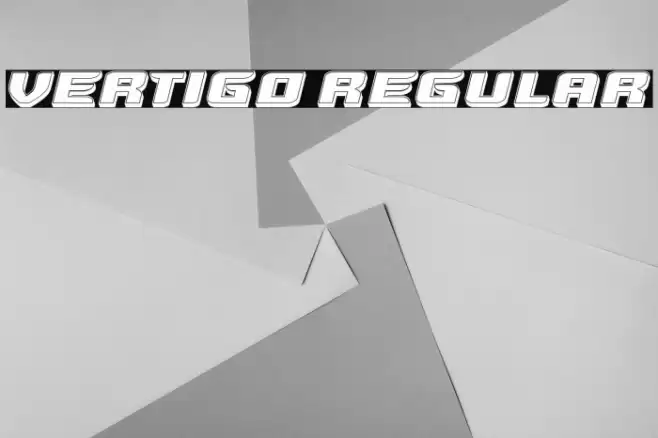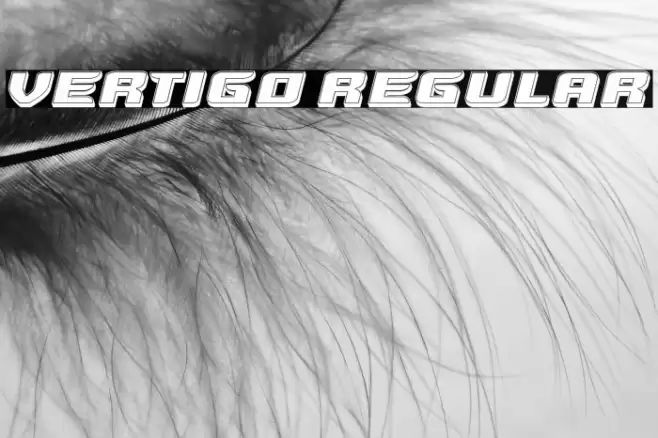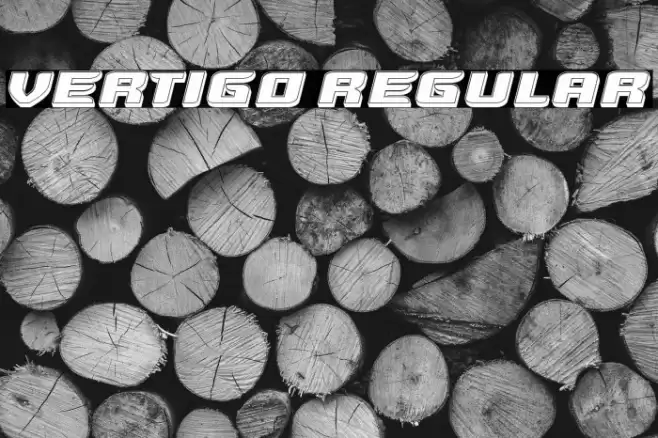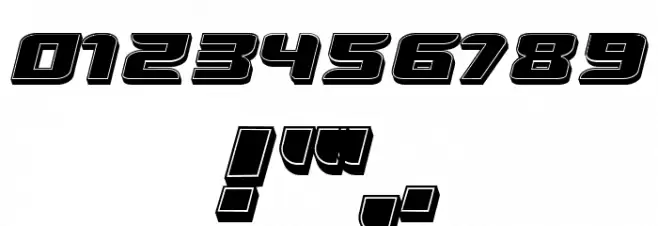
Vertigo Regular Font
Vertigo Regular Description
This font features a bold and dynamic style with a strong presence. The characters are designed with a three-dimensional effect, giving them a sense of depth and movement. The strokes are thick and consistent, providing a robust and impactful appearance. The font is well-suited for attention-grabbing headlines and titles, with its unique and modern aesthetic. The uppercase letters are particularly striking, with sharp angles and a futuristic feel. The numbers and special characters maintain the same boldness and style, ensuring consistency across all elements.
A bold, dynamic font with a three-dimensional effect and modern aesthetic from Regular fonts.
- Proposed Projects: Ideal for use in posters, logos, video game graphics, and any project requiring a bold, futuristic look.